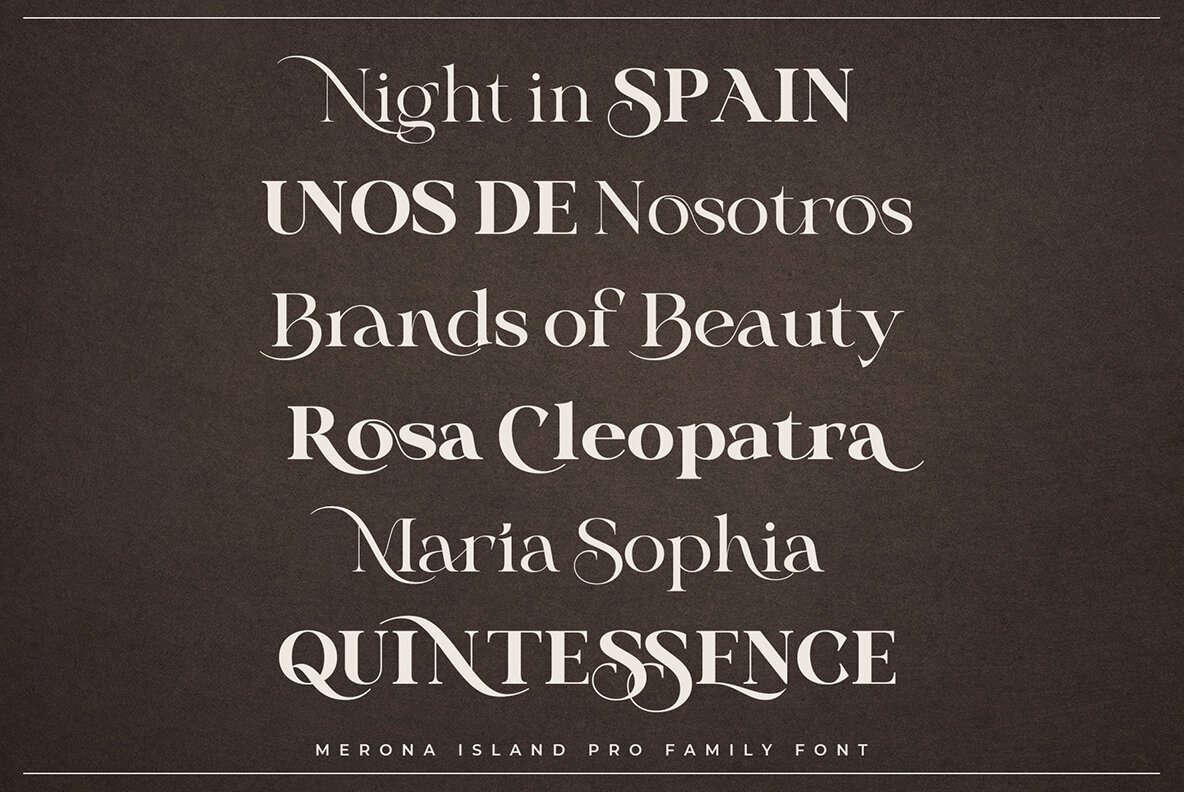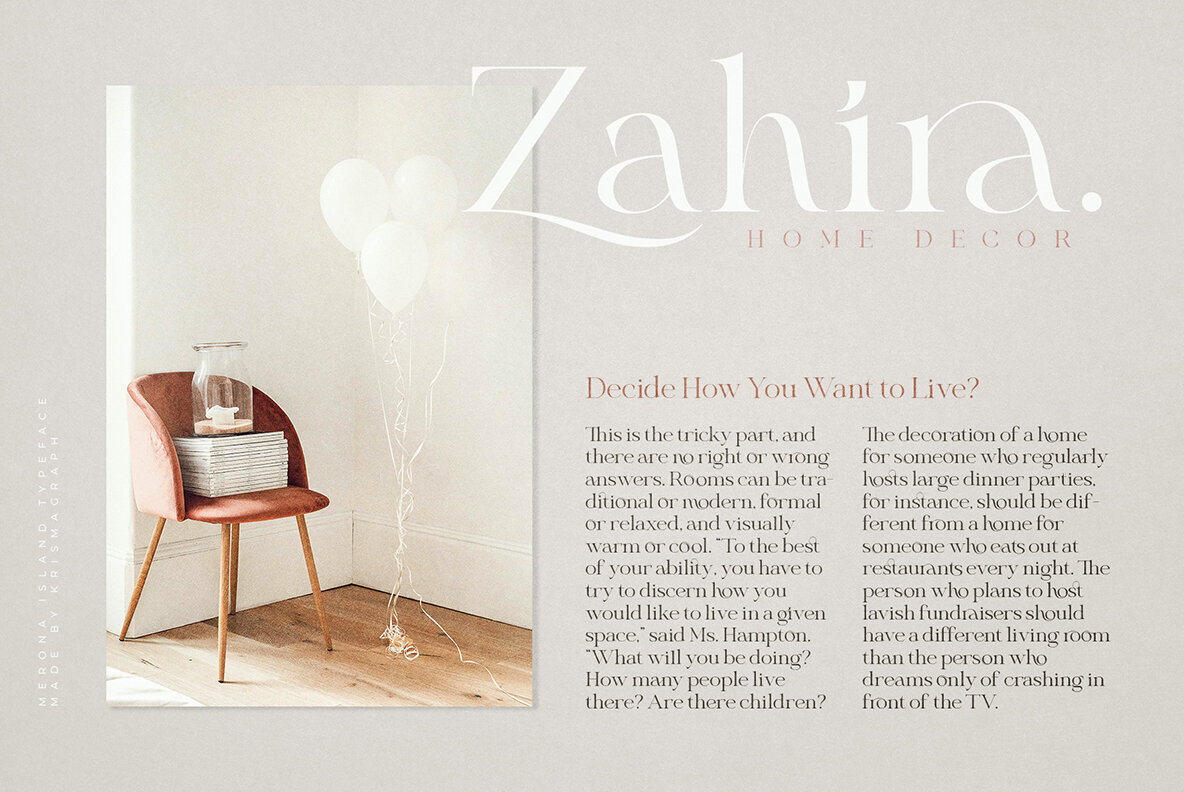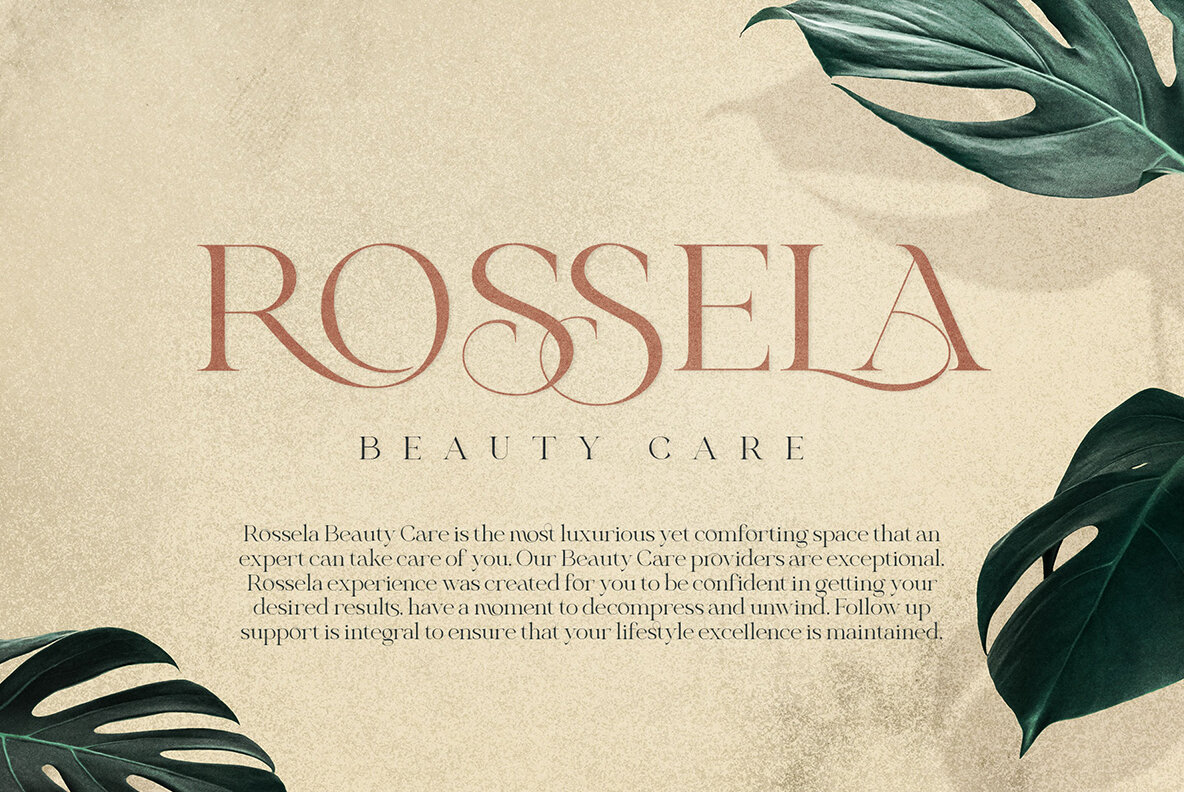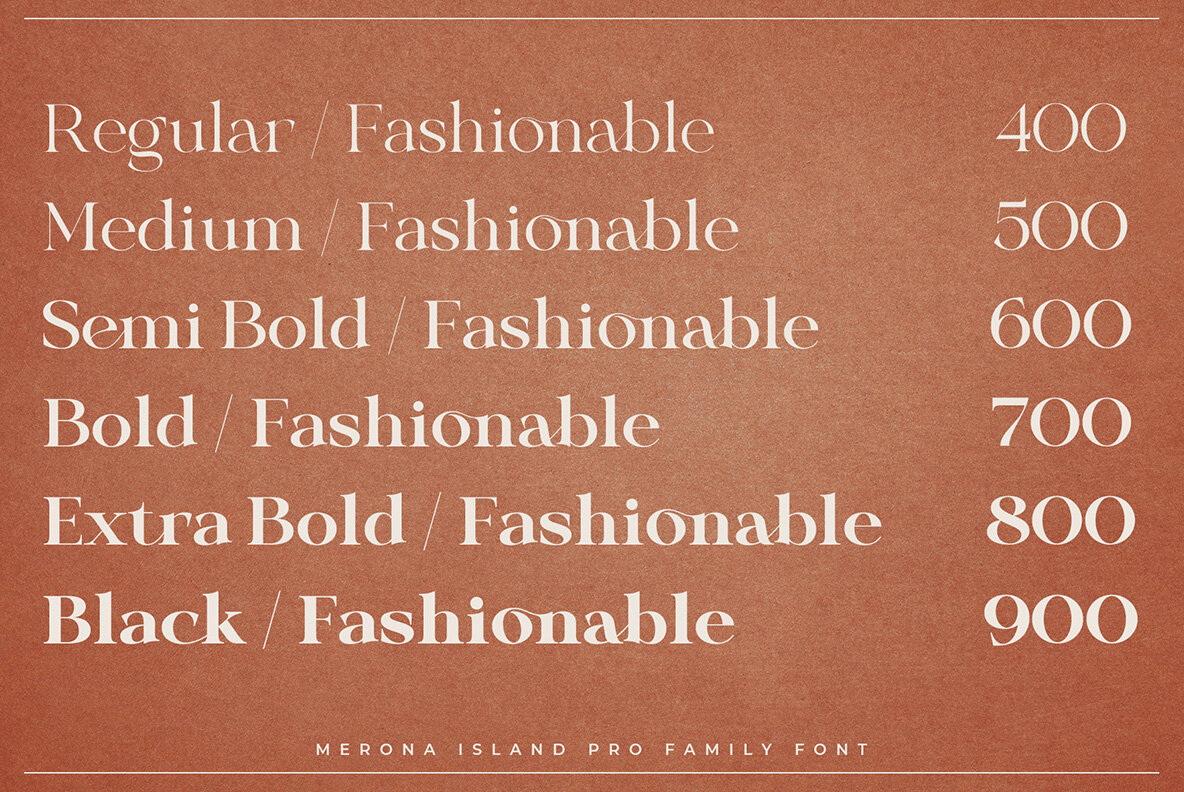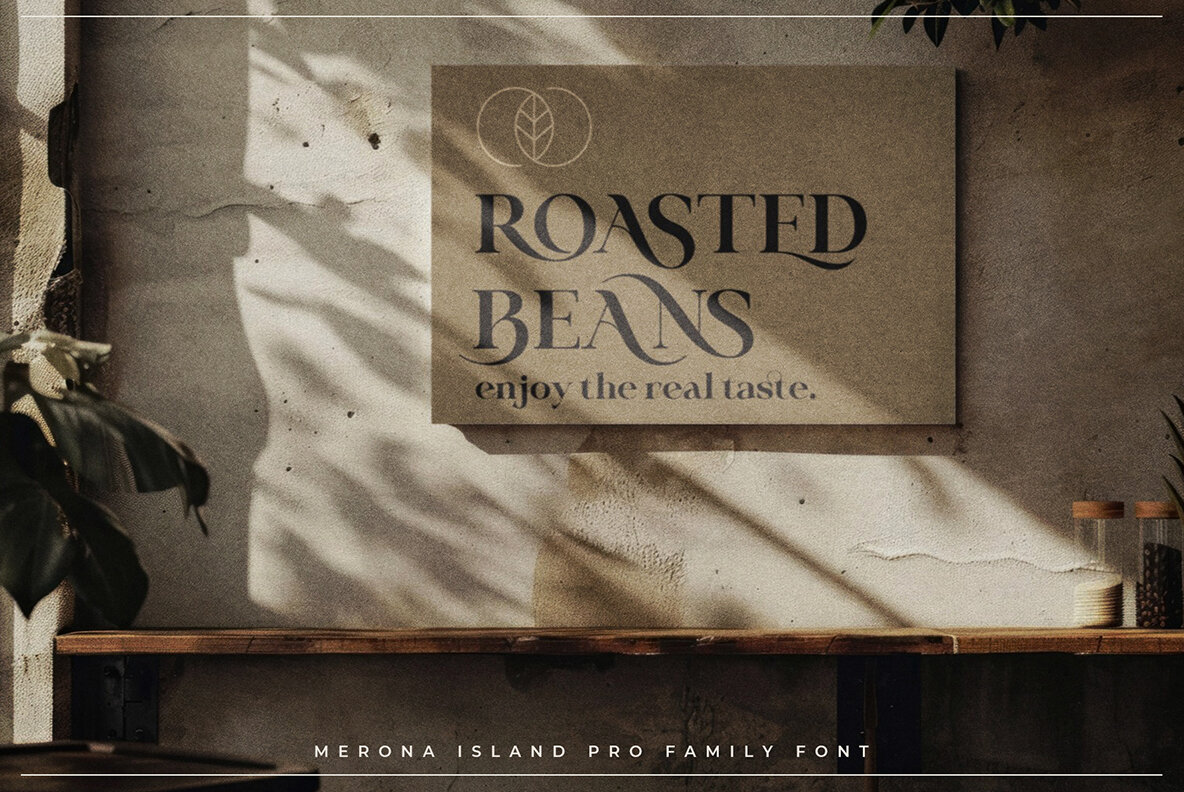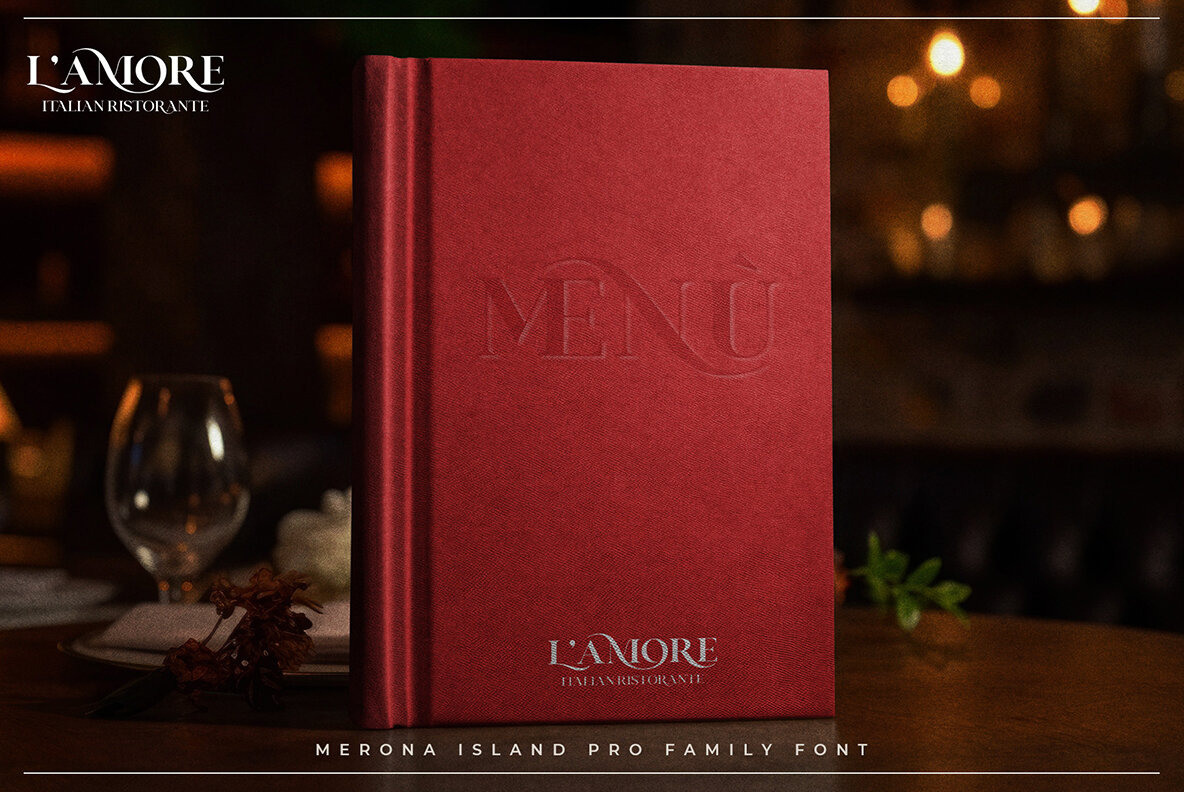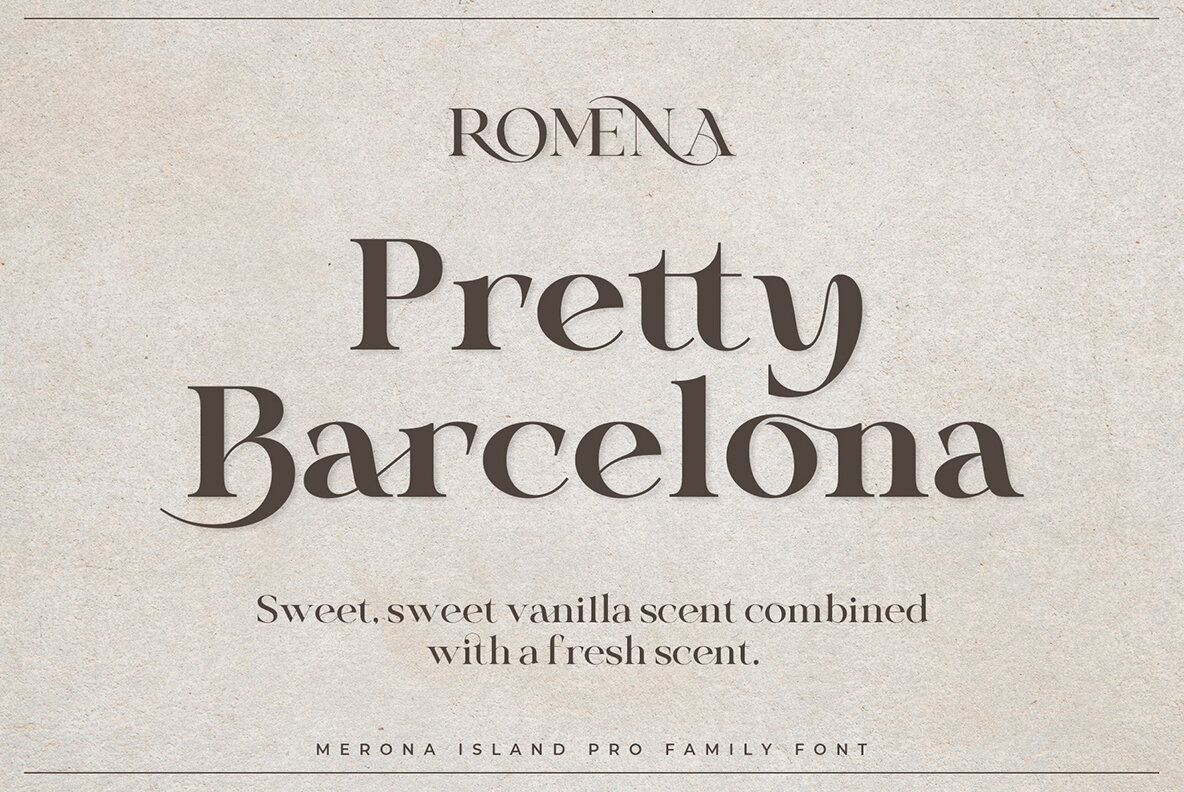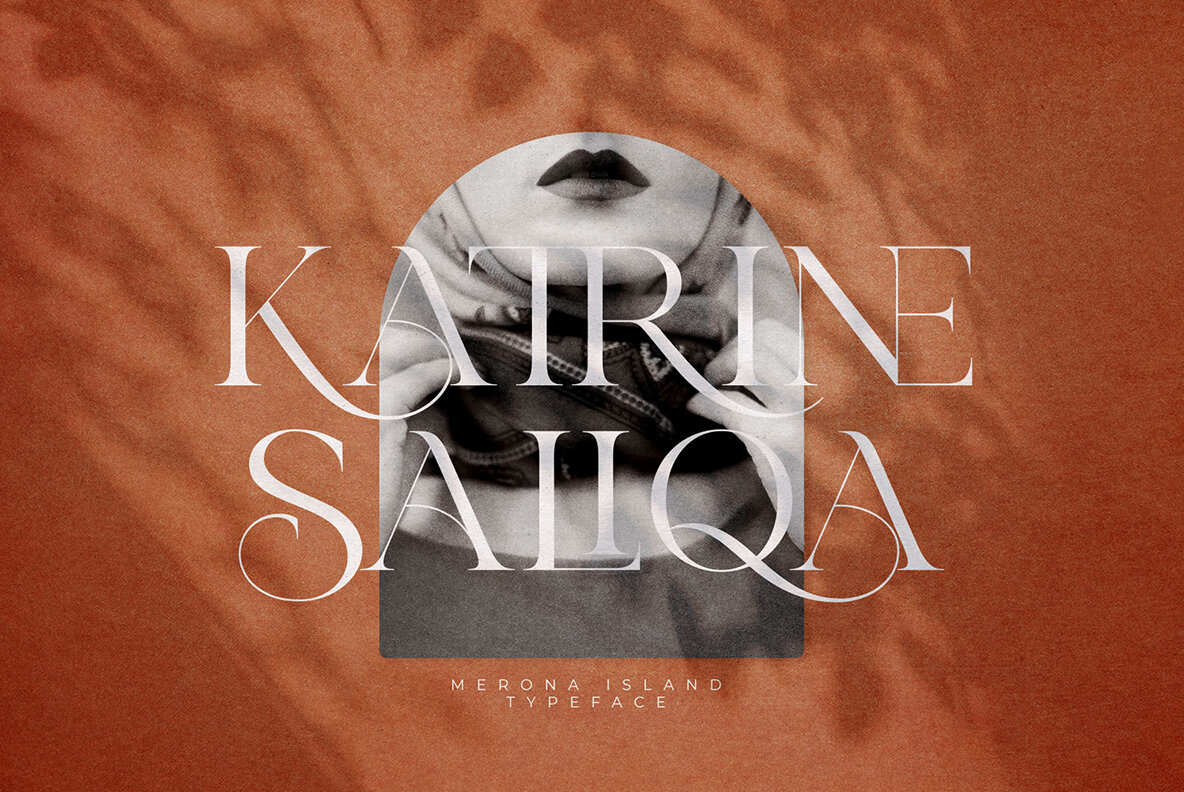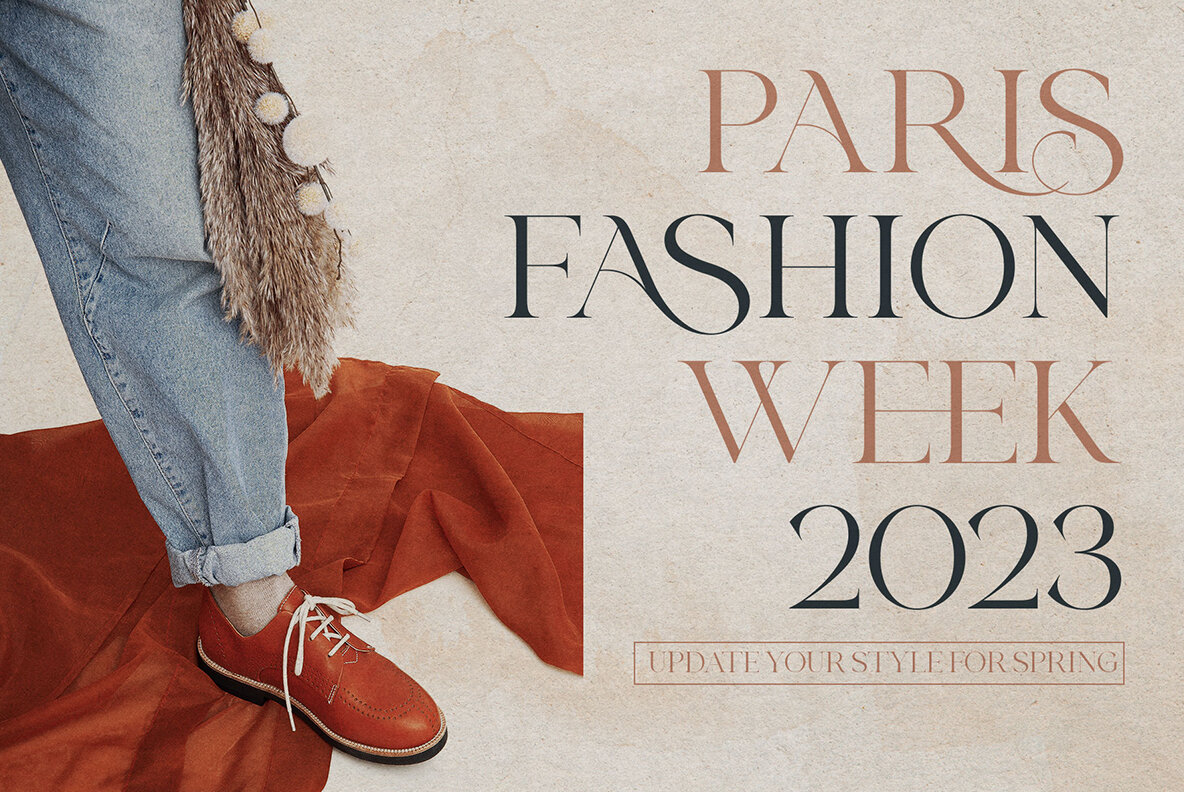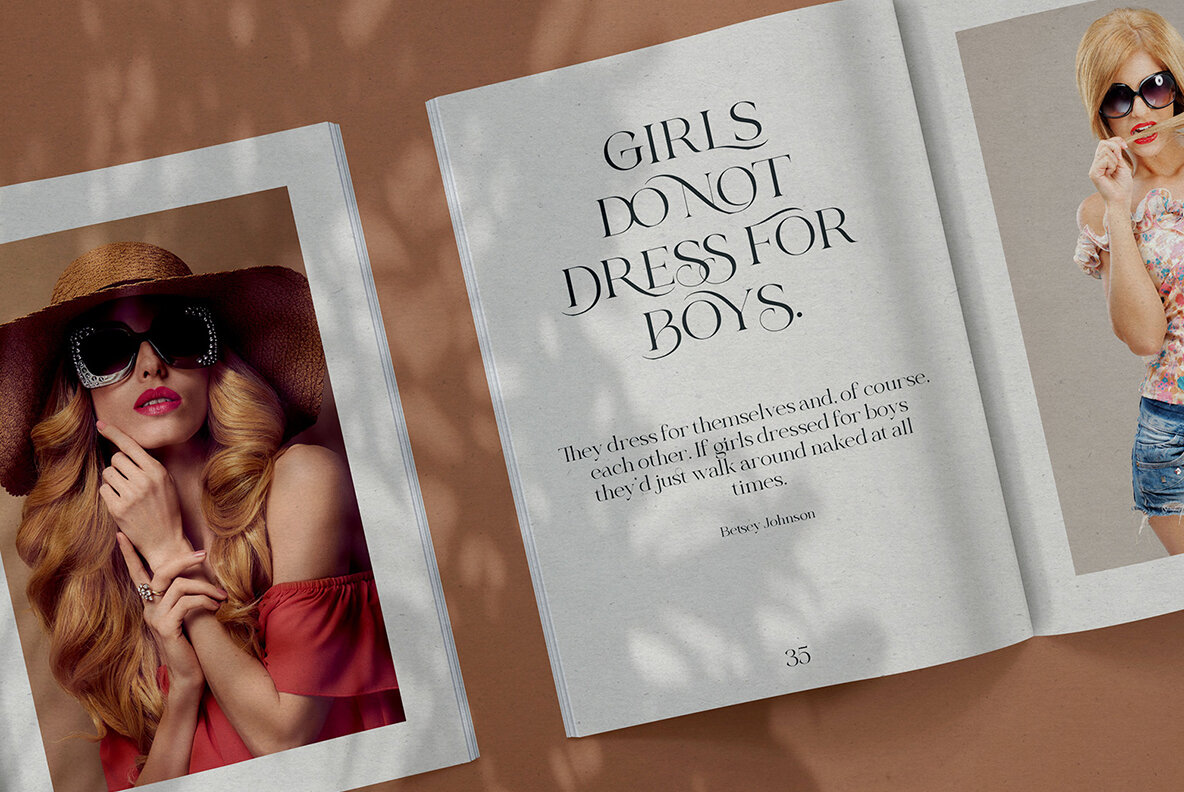
Merona Island Pro Font
Merona Island Pro gracefully blends soft curves with high-contrast glyphs, offering a harmonious fusion of feminine and masculine qualities. This versatile font family, featuring six distinct weights, 107 unique ligatures, and 45 stylistic alternates, caters to an array of design needs. Ideal for layout designs, it excels in presenting quotes or serving as body text. Its most striking application is as a display font for headings, branding, magazines, and product packaging.Merona Island Pro: Modern Ligature Serif Font Family